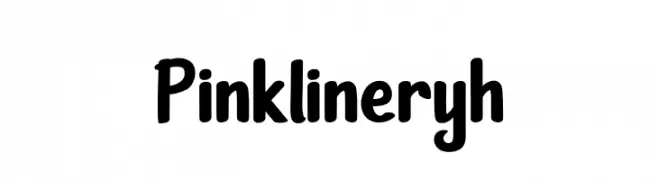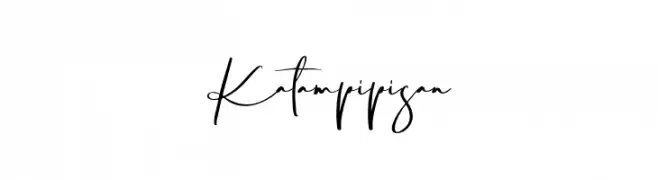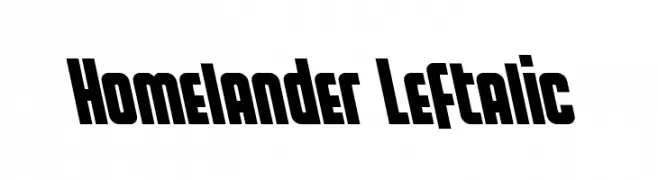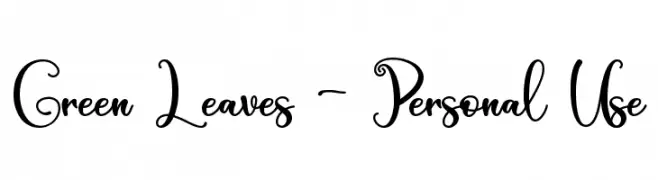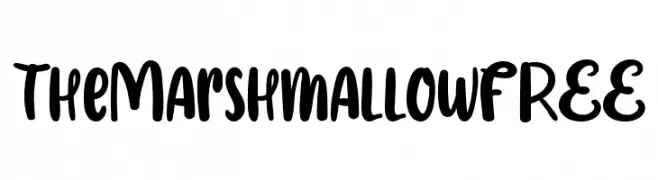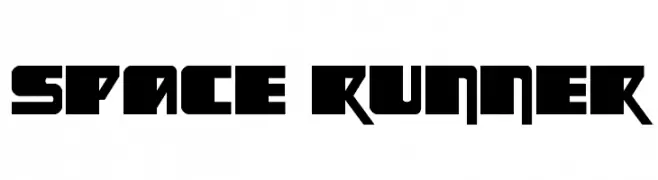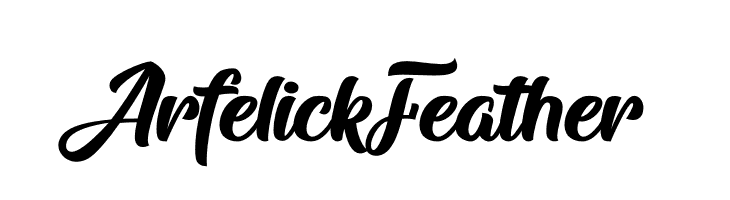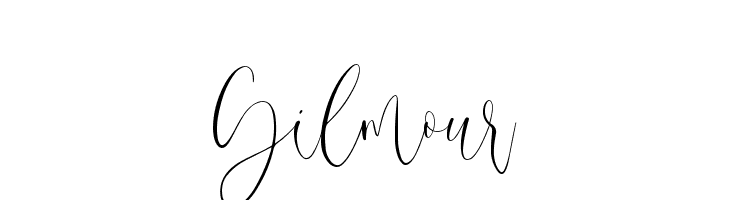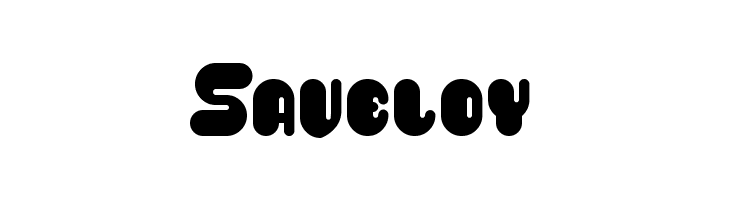
A bold, condensed serif typeface for Armenian script with strong, thick strokes.
An elegant script font with flowing, interconnected letters and ornate details.
A playful, bold font with rounded edges and a hand-drawn feel.
A flowing, cursive handwritten font with elegant connections and dynamic contrast.
A bold, semi-condensed sans-serif font with excellent readability.
A bold, left-slanted font with a modern and dynamic style.
An elegant, decorative script font with intricate swirls and loops.
A playful, bold, and rounded font with a handwritten style.
A bold, geometric, and italic font with a retro disco vibe.
A bold, futuristic font with angular, geometric shapes.